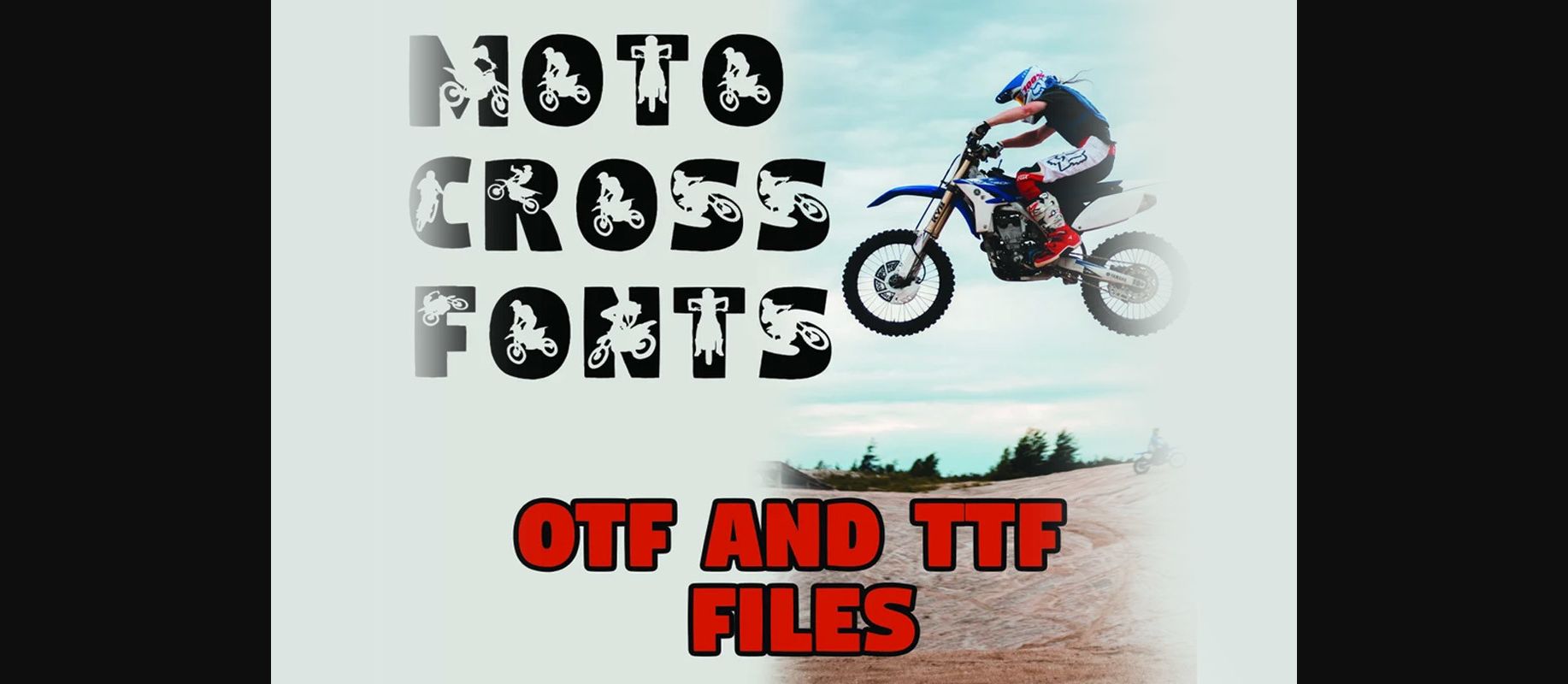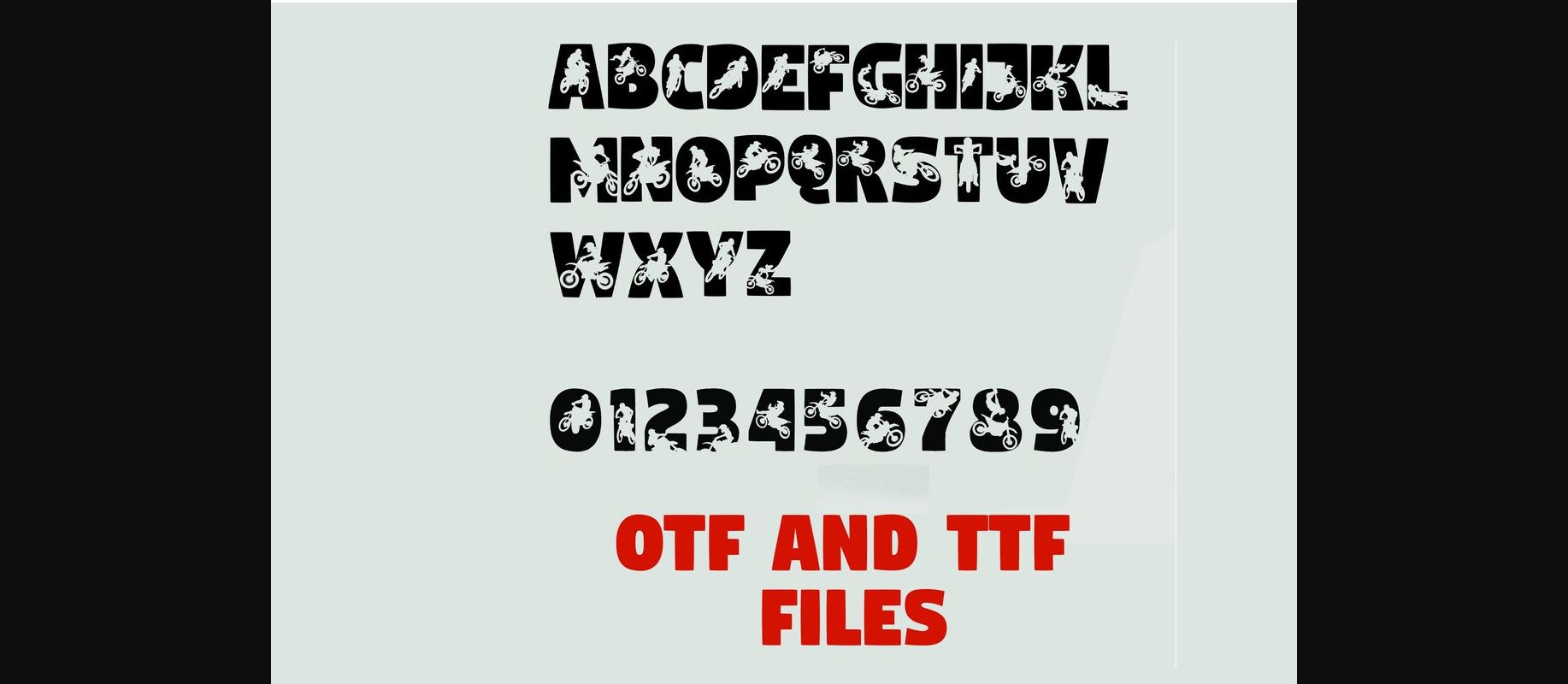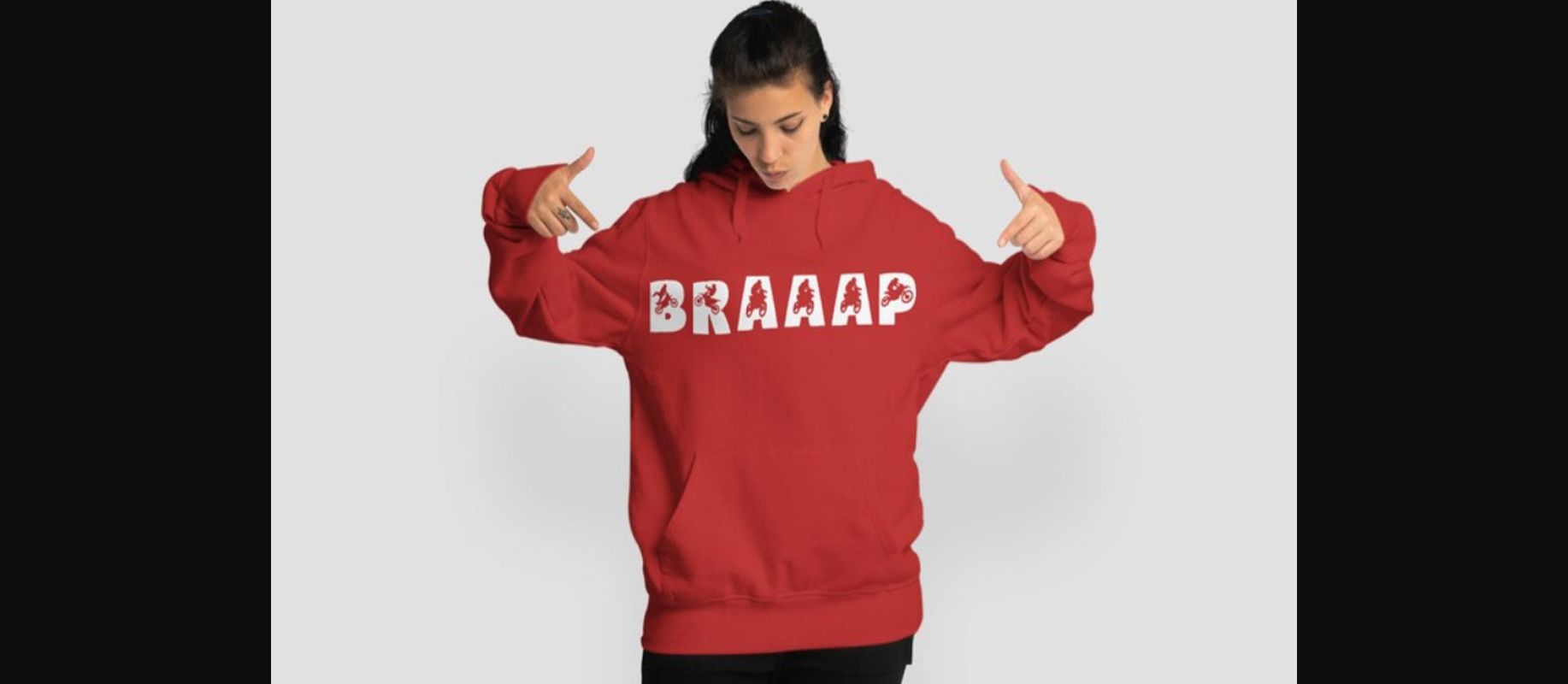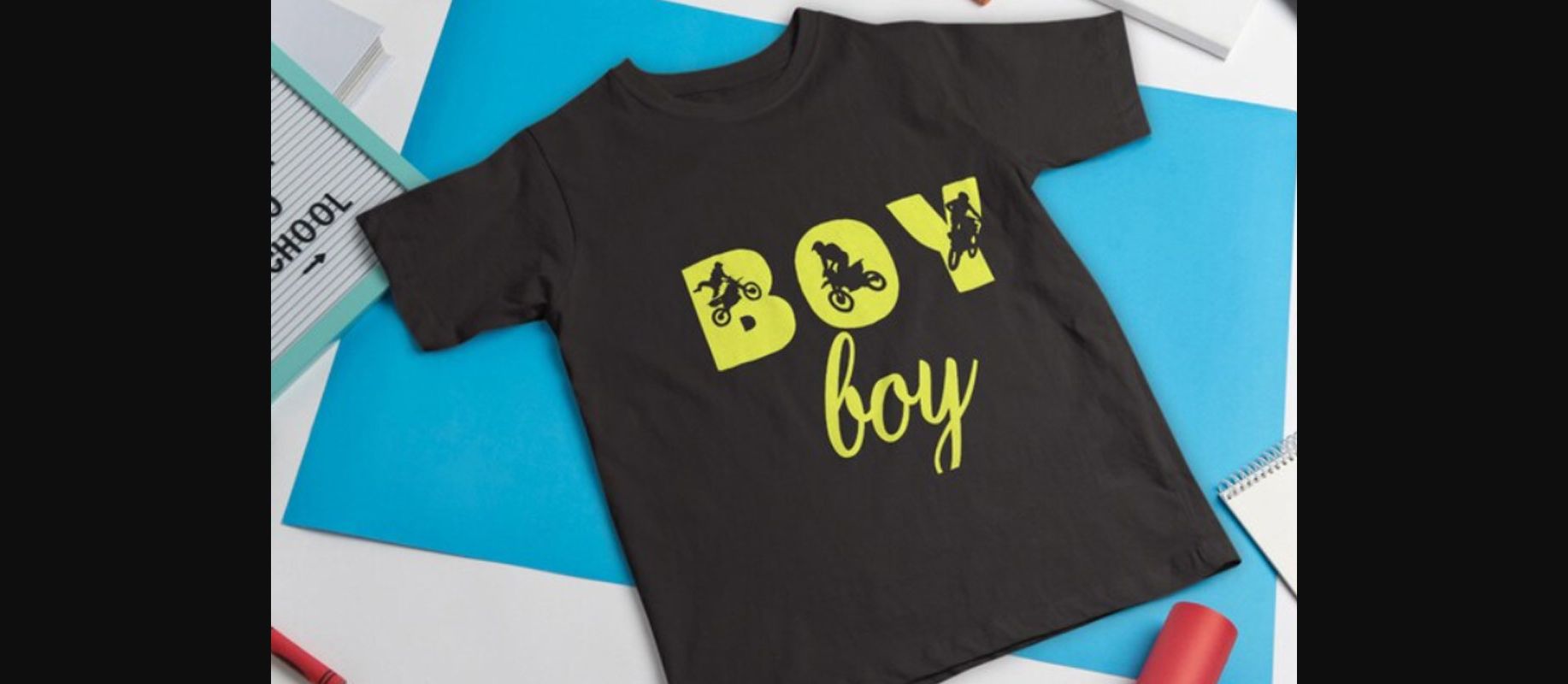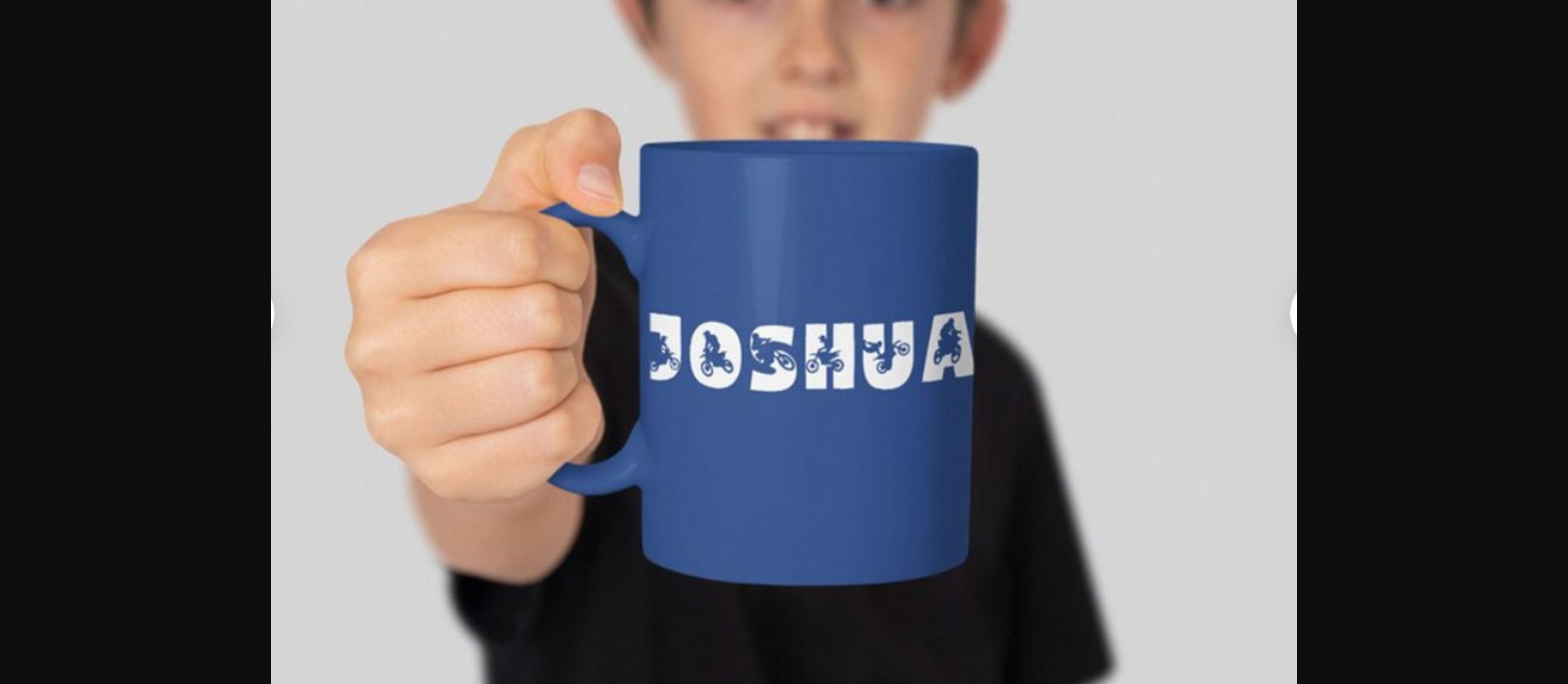
Motocross Font
About Motocross Font
Rev up your designs with Motocross a high-octane alphabet and numbers font designed for motocross enthusiasts. This adrenaline-fueled font is perfect for creating motocross team logos, race event posters, apparel designs, and more. Motocross captures the thrilling essence of motocross with its bold and rugged characters, adding a dynamic edge to your designs. Available in both OTF (OpenType) and TTF (TrueType) formats, this font ensures seamless compatibility across various design software.